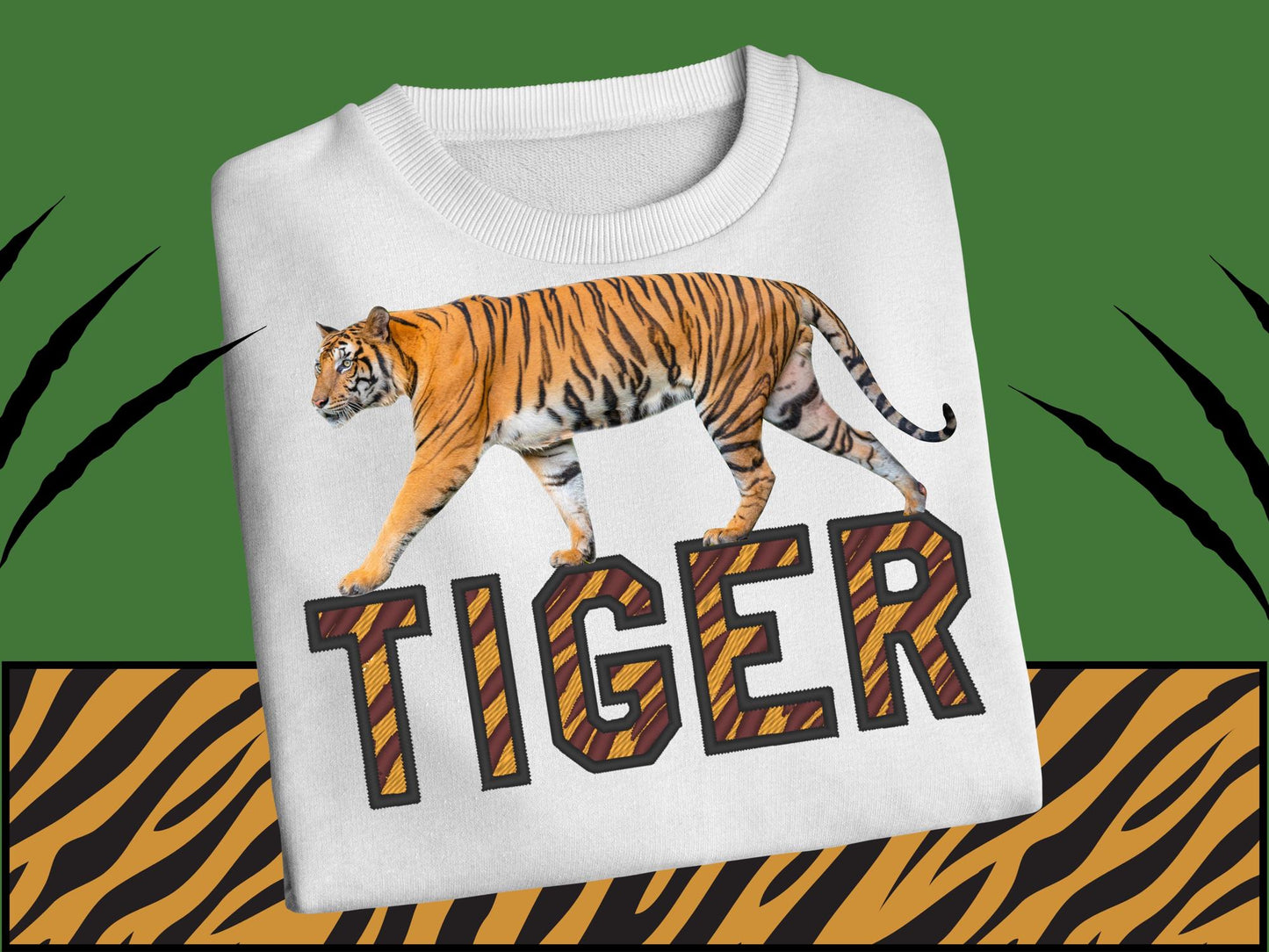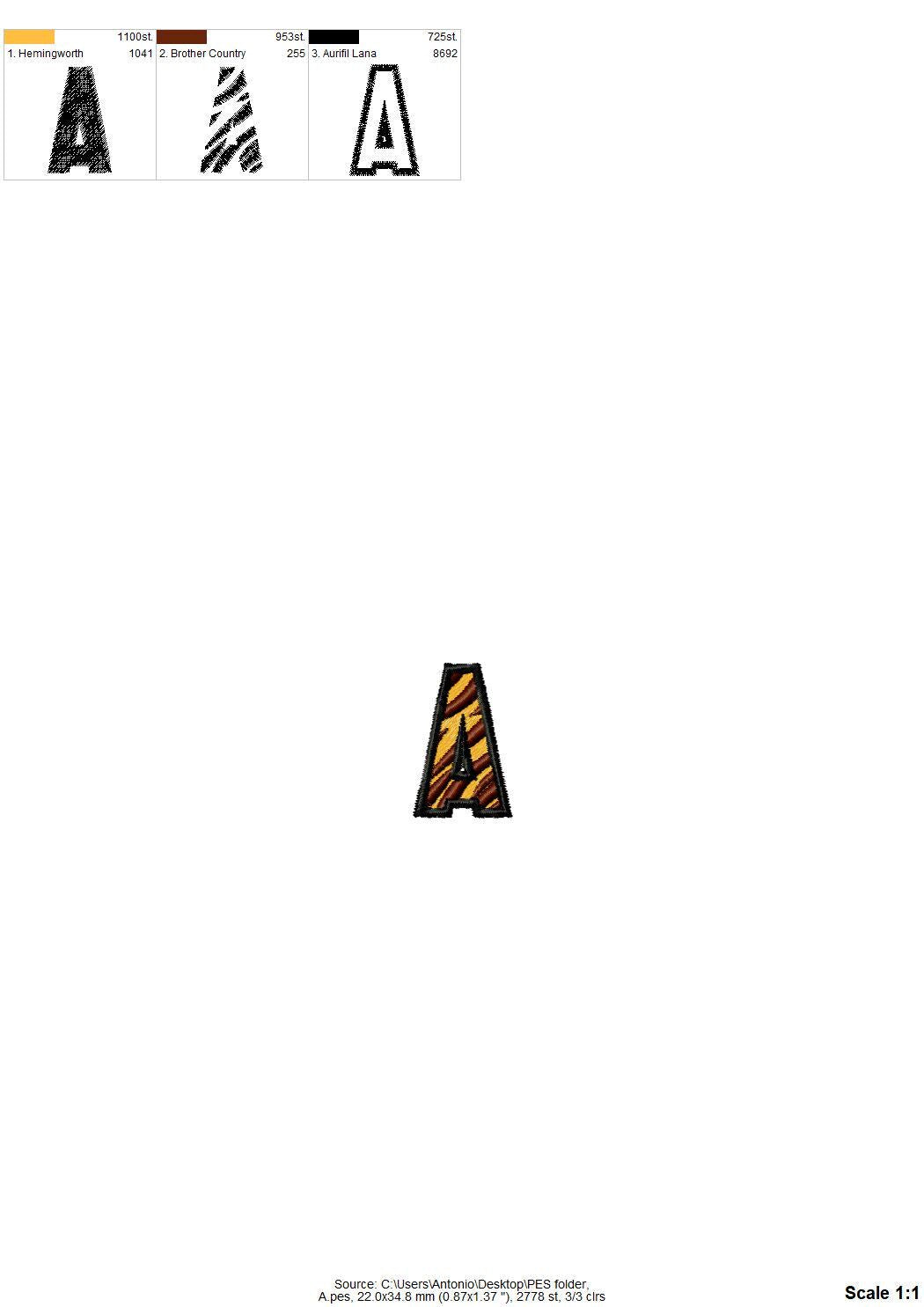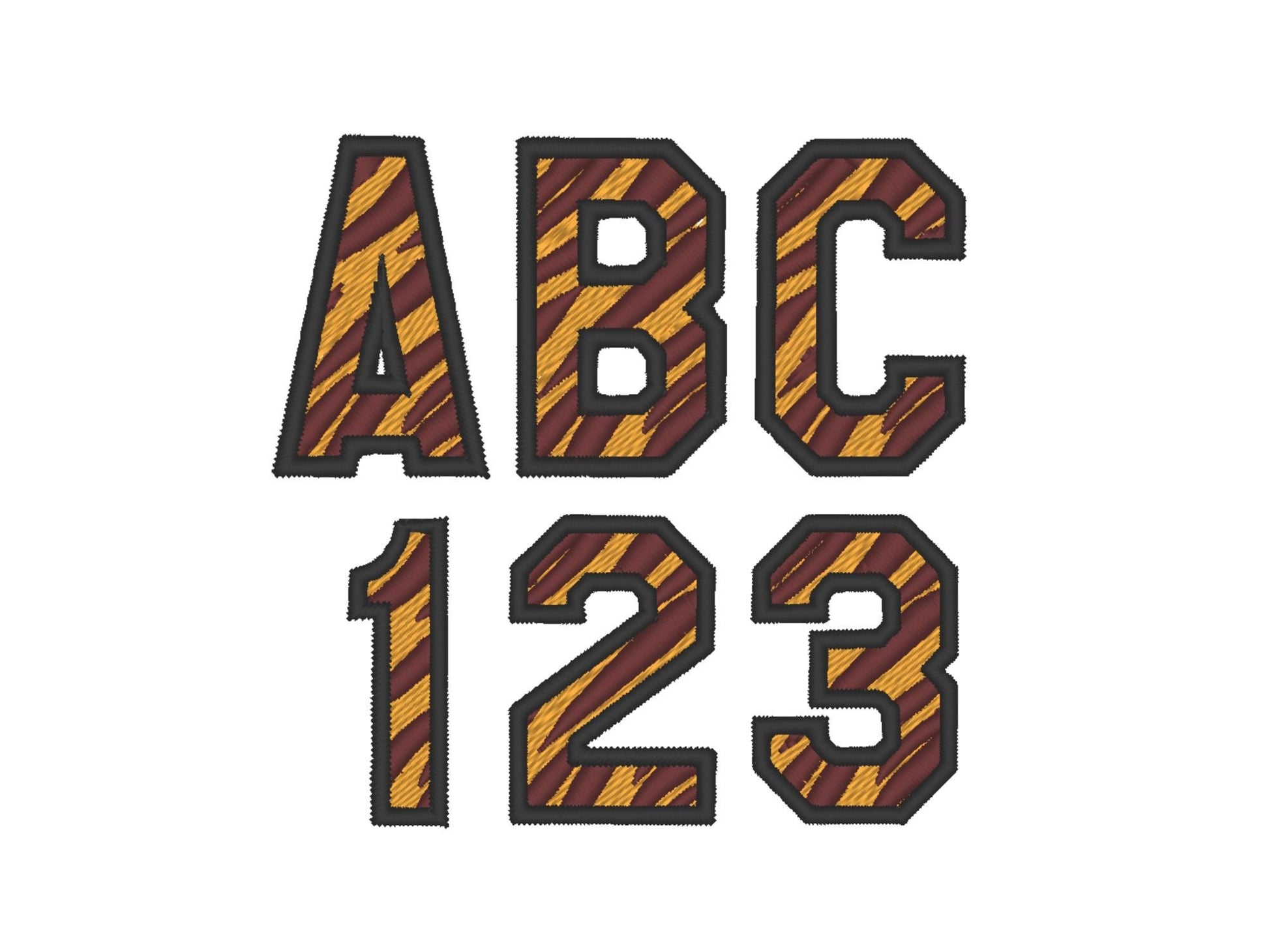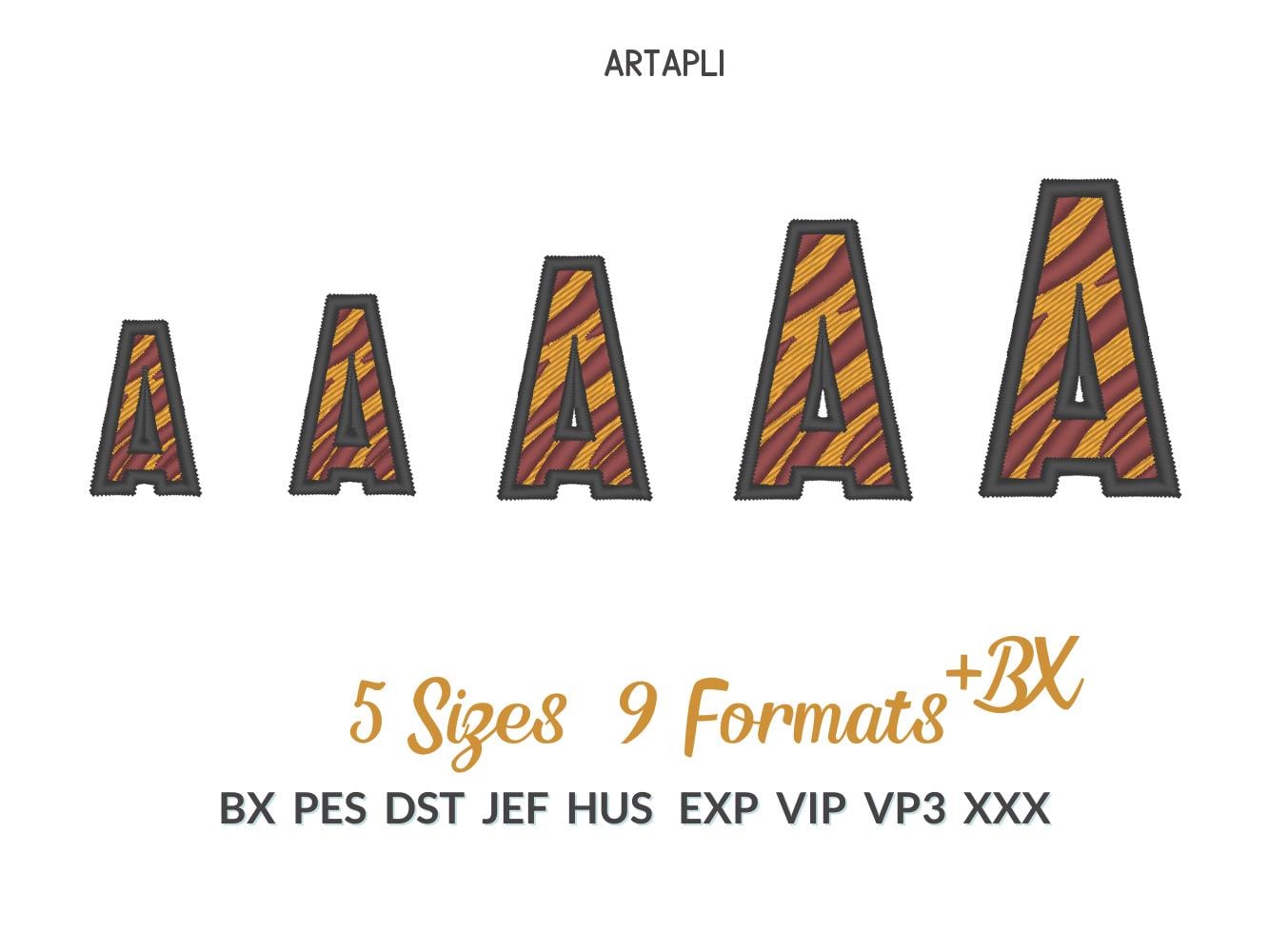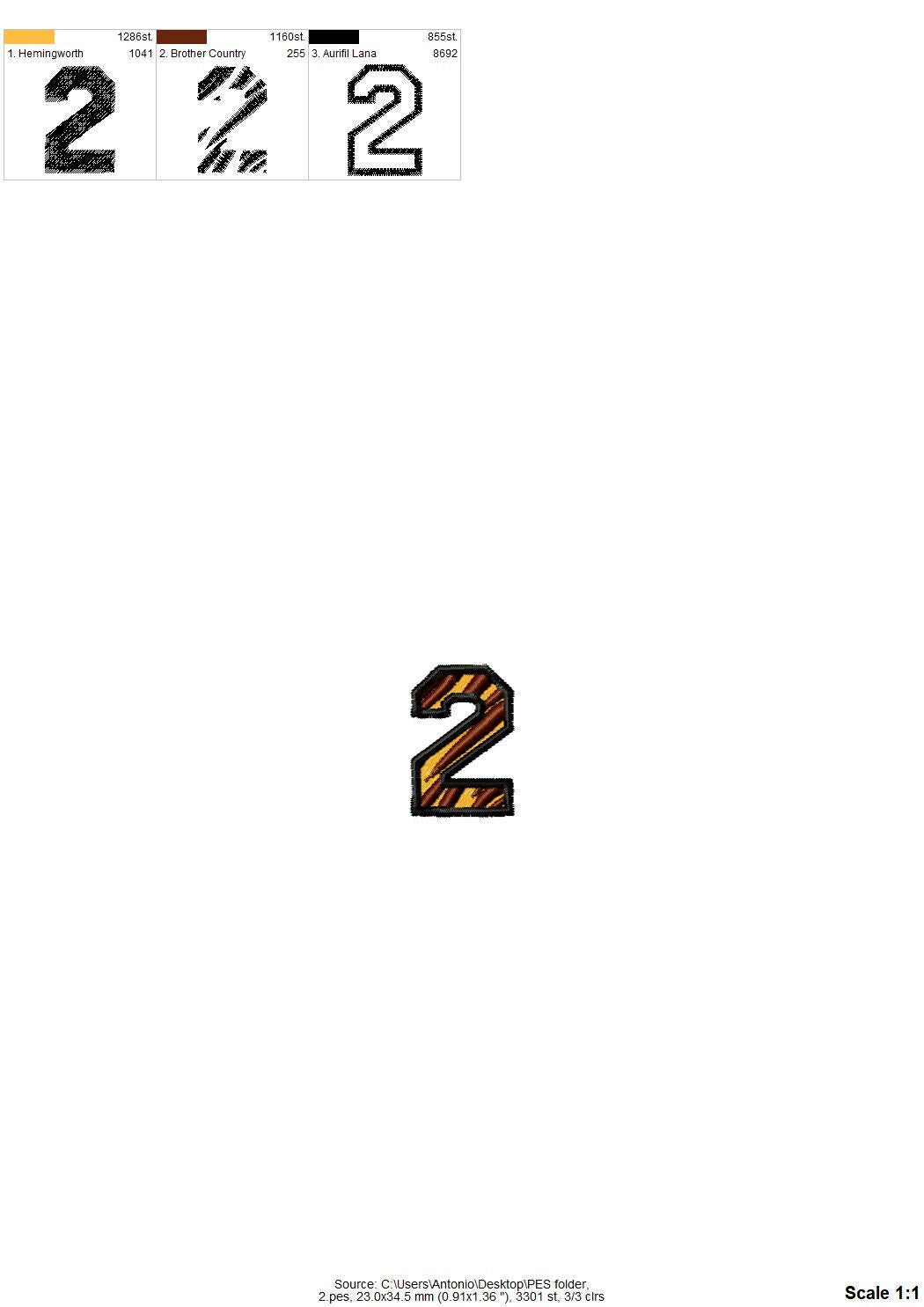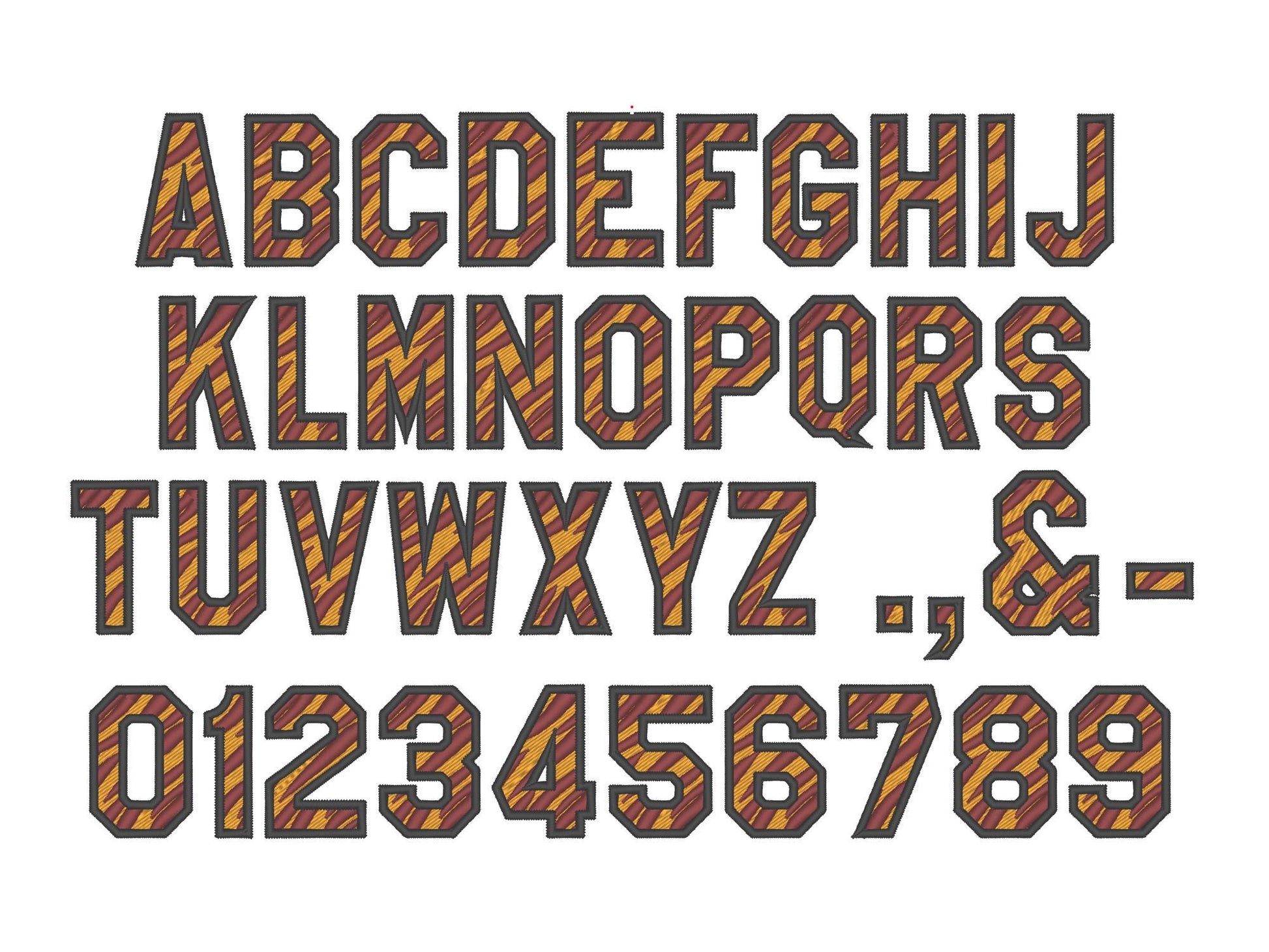
Tiger Print Embroidery Font Mini Sizes Tiger
The letters come in six small sizes: 1, 1.1, 1.2, 1.4, 1.6 and 1.8 inches. Fill stitch in three colors: a main color, tiger stripes and an outline.
- Tiger stripe varsity font, uppercase A-Z
- Numbers 0-9 and punctuation
- 6 sizes, 1 to 1.8 in